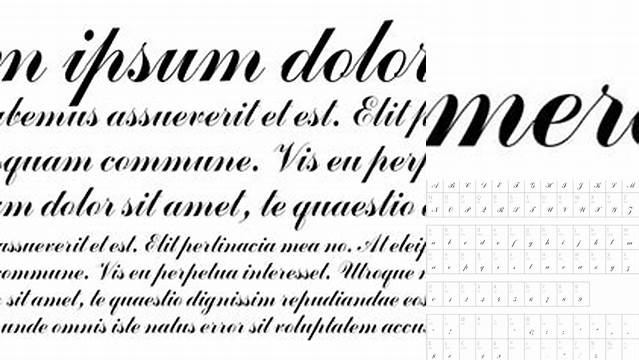
Hey guys, ever find yourself staring at a blank canvas, needing that perfect font to bring your commercial project to life? You know, the kind of font that screams professionalism but still has a touch of friendly charm? Well, you're in luck! Today, we're diving deep into the world of the Commercial Script SB Regular font, and more importantly, how you can snag a free download to elevate your designs. This isn't just about a font; it's about making your brand message pop, whether it's for a new product launch, a catchy advertisement, or even just a slick social media graphic. So, buckle up, because we're about to unlock the secrets to using this versatile typeface and where to find it without breaking the bank.
Understanding the Appeal of Commercial Script SB Regular
The Commercial Script SB Regular font isn't just another pretty typeface; it's a carefully crafted design element that bridges the gap between formality and approachability. Its sweeping strokes and elegant curves lend an air of sophistication, making it ideal for projects that need to convey trust and quality. Think high-end product packaging, elegant wedding invitations, or corporate branding that aims for a classic yet contemporary feel. What sets this font apart is its readability, even with its script-like nature. Unlike some overly decorative scripts that can be a nightmare to decipher, Commercial Script SB Regular maintains a clarity that ensures your message is always understood. This balance is crucial in commercial settings where effective communication is paramount. Designers often gravitate towards this font because it offers a unique personality without sacrificing legibility. It’s the kind of font that can make a bold statement on a billboard or a subtle, sophisticated touch on a business card. The regular weight provides a solid foundation, offering versatility for various applications, from headlines to body text in certain contexts. Its design is inspired by traditional calligraphy but modernized for contemporary digital use, ensuring it renders beautifully across all platforms and sizes. When you're looking for a font that says 'established' and 'reliable' but still feels dynamic and engaging, Commercial Script SB Regular is definitely worth a closer look. It’s a workhorse for designers who appreciate both aesthetic appeal and functional clarity in their typographic choices.
Why Commercial Script SB Regular is a Designer's Go-To
Many designers reach for Commercial Script SB Regular when they need a font that offers both flair and function. Its classic script aesthetic is instantly recognizable, evoking a sense of tradition and elegance. This makes it particularly effective for brands that want to project an image of heritage, luxury, or artisanal quality. Whether you're designing a logo for a boutique bakery, a wine label, or a high-fashion brand, this font can add that essential touch of refinement. But it's not just about looking pretty; Commercial Script SB Regular is also remarkably versatile. The 'Regular' weight ensures it's legible enough for various applications, from catchy headlines that grab attention to more extended text passages where clarity is key. This adaptability is a significant advantage in commercial design, where a single font might need to perform multiple roles. Furthermore, the clean lines and balanced proportions of Commercial Script SB Regular prevent it from feeling stuffy or outdated. It has a timeless quality that allows it to seamlessly integrate into both modern and traditional design schemes. When you consider the impact of typography on brand perception, choosing a font like Commercial Script SB Regular can be a game-changer. It communicates a level of care and attention to detail that resonates with consumers, suggesting that the brand itself is equally meticulous. For anyone looking to add a touch of sophistication and personality to their projects without compromising on readability, this font is an absolute winner. Its ability to convey a sense of luxury and trustworthiness makes it a staple in many professional design toolkits, proving that beautiful script fonts can indeed be practical.